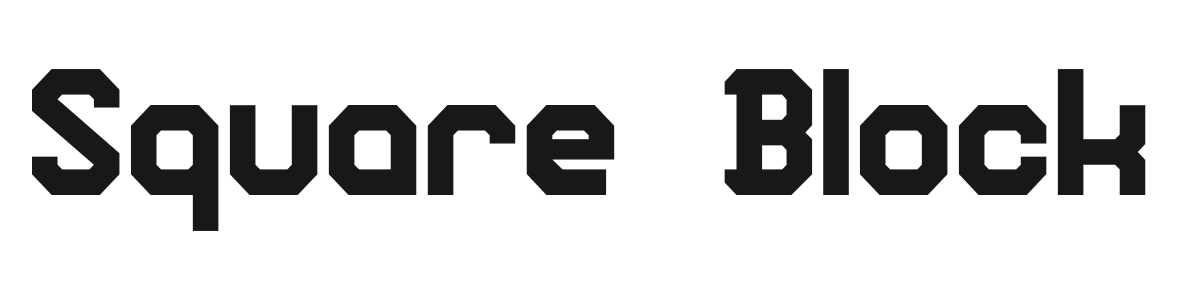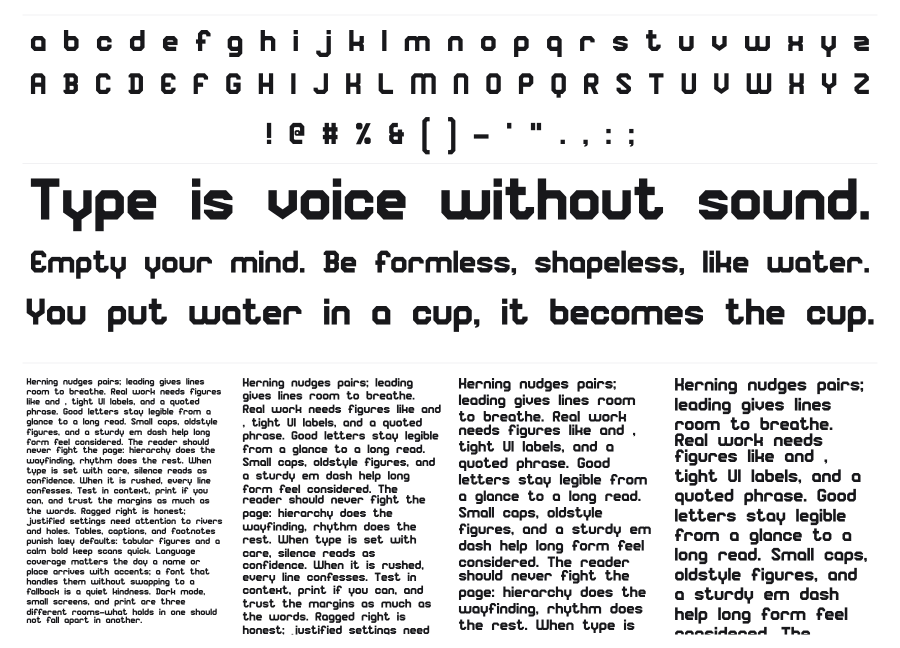
Square Block
Square Block is a bold geometric sans built on a grid of squared forms with chamfered corners that soften the rectangular construction without losing its hard-edged character. Every character reads as modular and deliberately heavy, with near-zero stroke contrast and wide proportions that command space on the page. It brings a digital, street-influenced energy to headlines, logos, and any context where weight is the message.